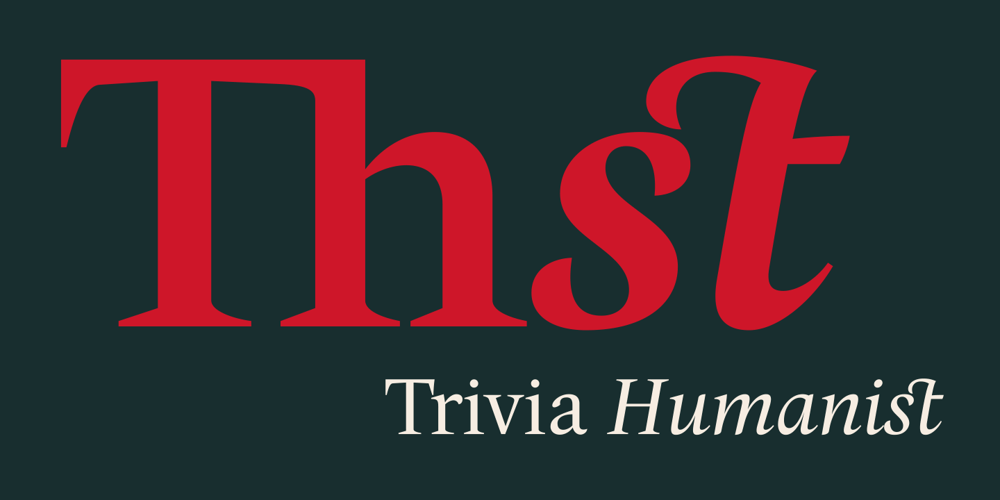
Trivia Humanist Font Family was designed by František Štorm and published by Storm Type Foundry. Trivia Humanist contains 10 styles and family package options. I decided to draw the Regular style of Trivia Humanist not too light and the Bold not too dark. Delicate anatomy and moderate contrasts of serifed humanist typefaces aren’t usually born by interpolating between extremes, but rather by meticulous care for each individual letter. A delicious blend of a trace of punchcutter’s tool and calligrapher’s hand with as few historical reminiscences as possible. It stays away from any strong aesthetic colorations as well, which is a common feature of the Trivia family system. I wanted a clear and majestic typeface for book jackets, LP cover designs, posters, exhibition catalogues and shorter texts. But at the end it turned out excellent for largest books as well.